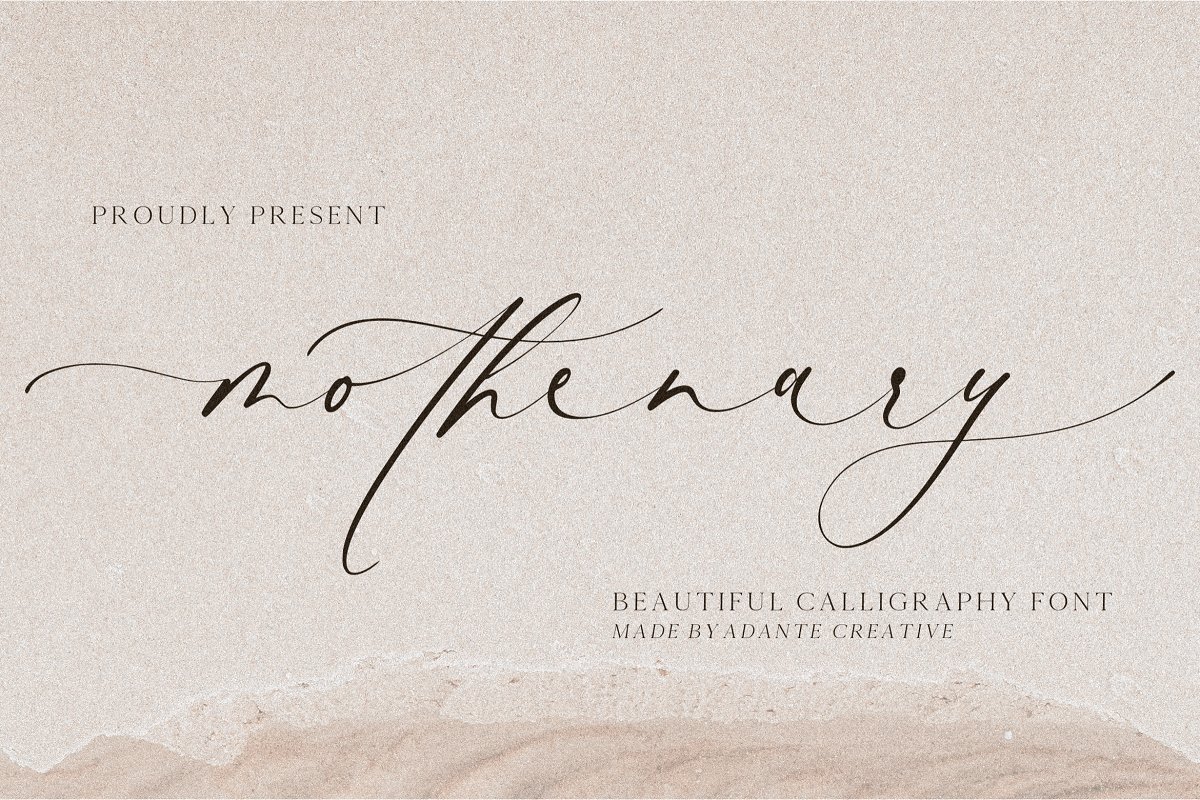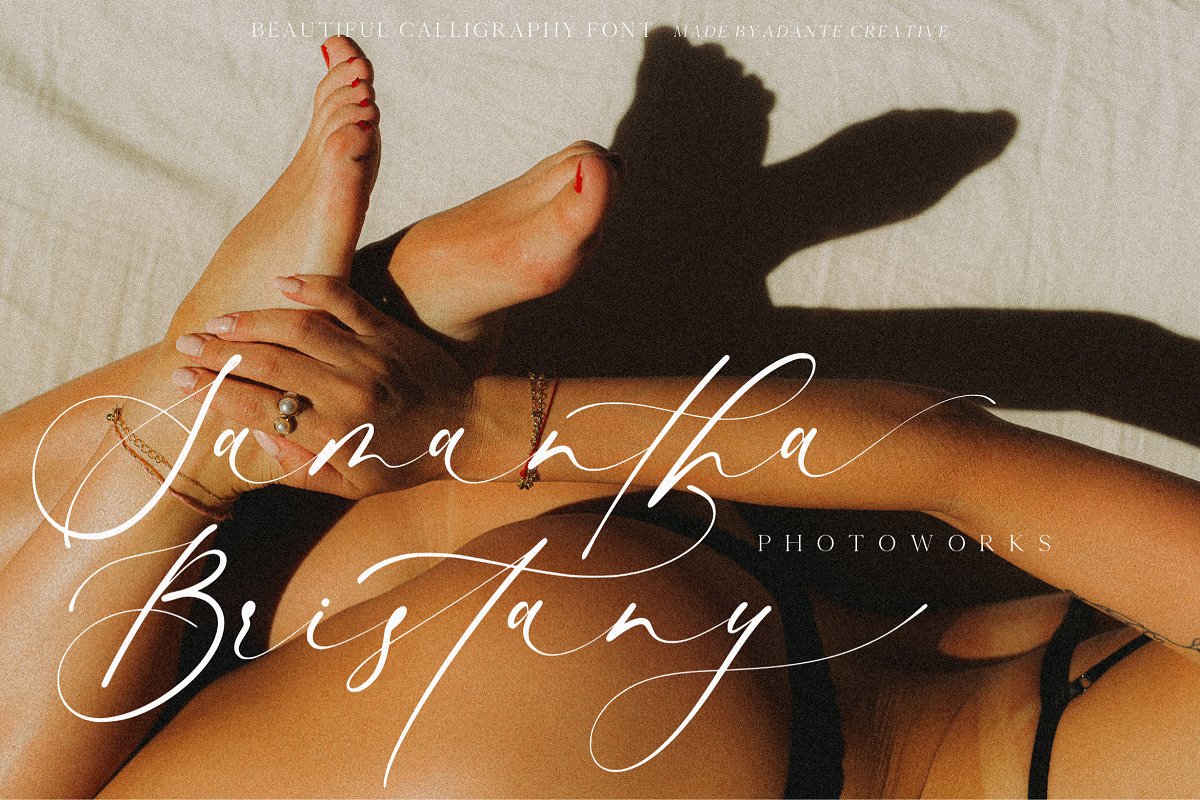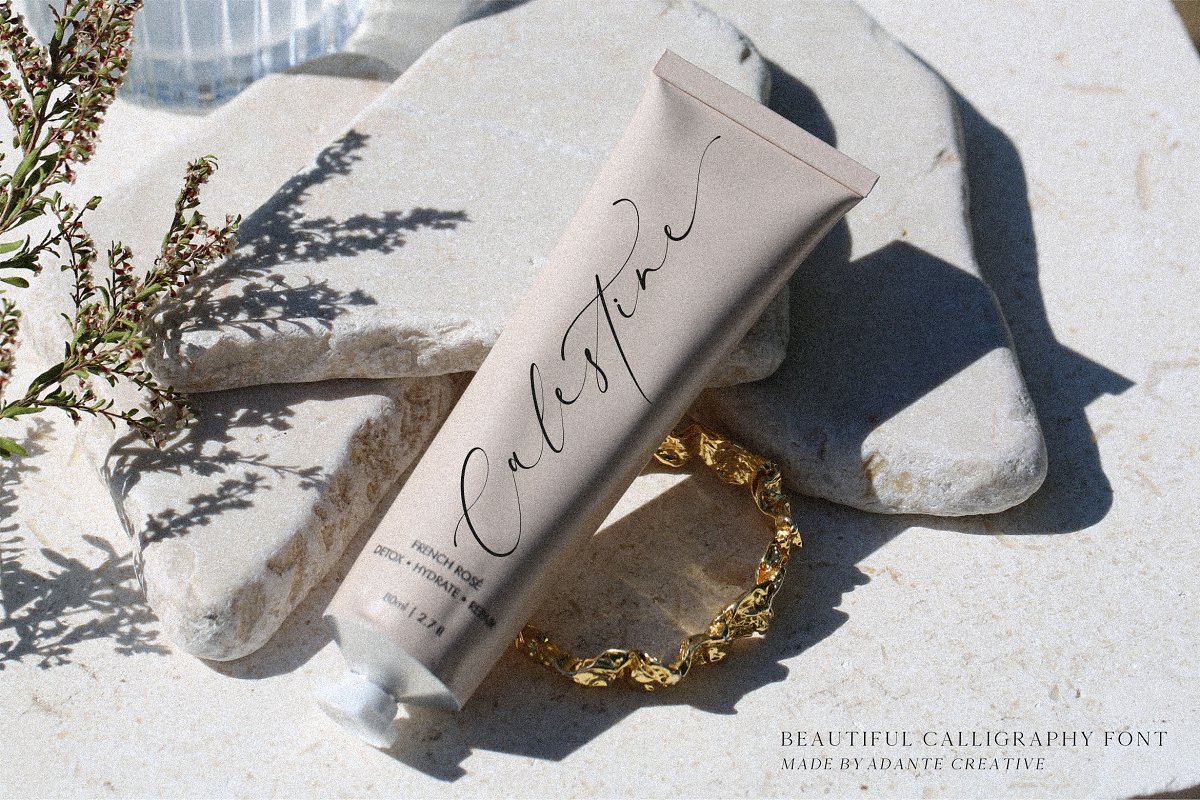
About the Mothenary
Introducing by Adante, CreativeProudly Present, Mothenary is A Beautiful Calligraphy FontMothenary is perfect for product packaging, branding project, megazine, social media, wedding, or just used to express words above the background, This font includes OTF&TTF&Woff, Mothenary also multilingual support, Enjoy the font, feel free to comment or feedback, send me PM or email